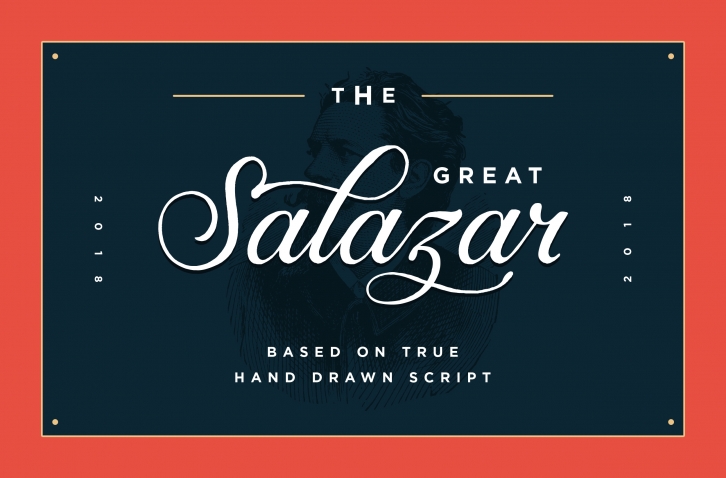
Inspired by the old era vintage brand and packaging. Where everything was done by hand back then. Came up from that idea, we build this typeface from traditional hand draw, every single letter. Crafted with care, holding on into the classic vibe what makes the great Salazar script have all of these strong vibes in your eyes.